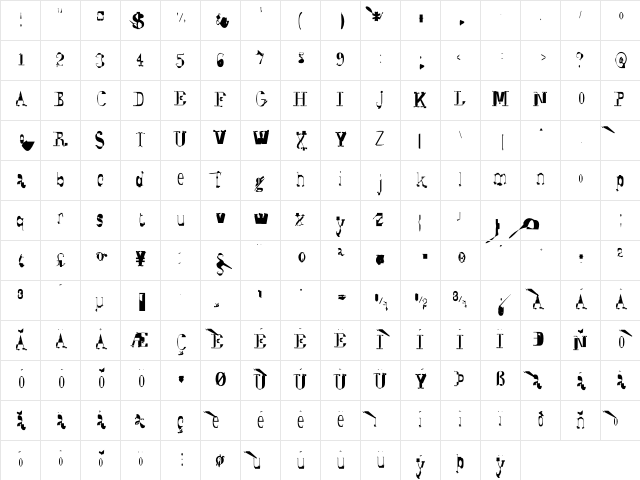
Complete Syzygy ElegantText glyph index. Displaying only characters natively supported by Syzygy ElegantText font.
Syzygy is a composed and adaptable typeface that performs quietly and consistently across a wide range of design contexts.